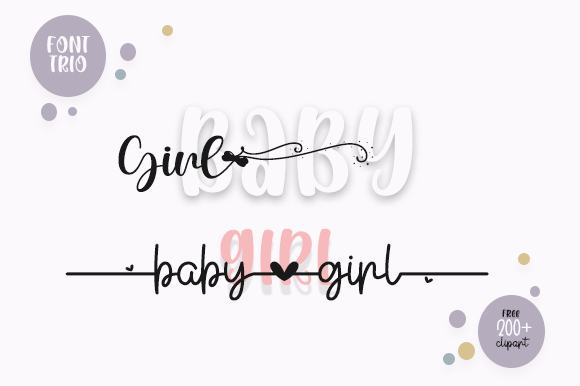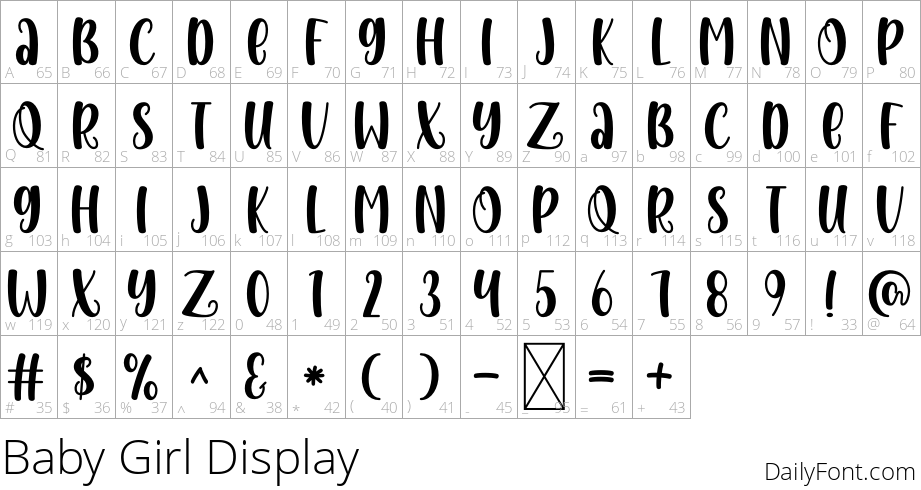
Baby Girl
Baby Girl by Fillo Graphic is a charming and playful script font that stands out due to its thick character strokes and whimsical design. This font brings an aura of warmth and creativity, making it an excellent choice for projects that require a personal and friendly touch. Each letter flows with a natural curvature, giving a hand-drawn feel that is both inviting and expressive.
The boldness of the strokes ensures that Baby Girl maintains excellent readability, even at smaller sizes. The lines are clean and neat, with just the right amount of flair to avoid looking overly ornamental. The consistent thickness throughout the alphabet gives it a cohesive appearance, making it a versatile option for various design needs, from invitations and greeting cards to posters and branding materials.
The playful loops and curls incorporated into the uppercase and lowercase letters add a dynamic energy without sacrificing clarity. The font’s whimsical personality is evident in every character, making it ideal for projects aimed at a younger audience or for any context where a light-hearted, joyful tone is desired. The numbers and special characters are designed to match the playful spirit of the alphabet, ensuring a harmonious look across all text elements. Baby Girl is a font that effortlessly blends elegance with fun, creating a unique and memorable impression wherever it is used.